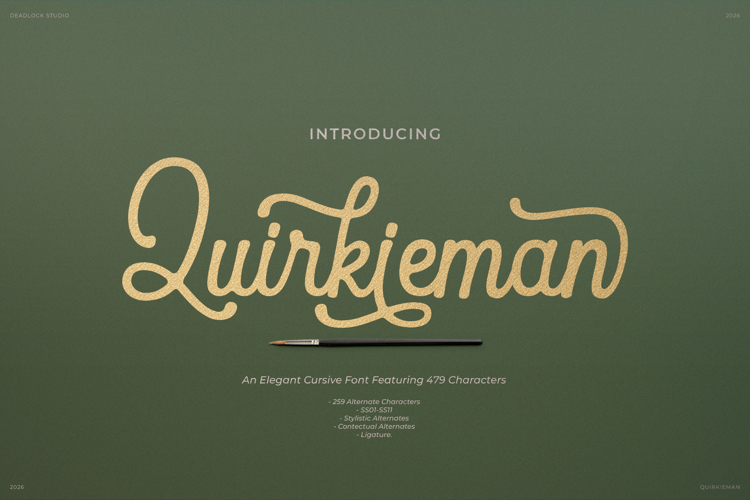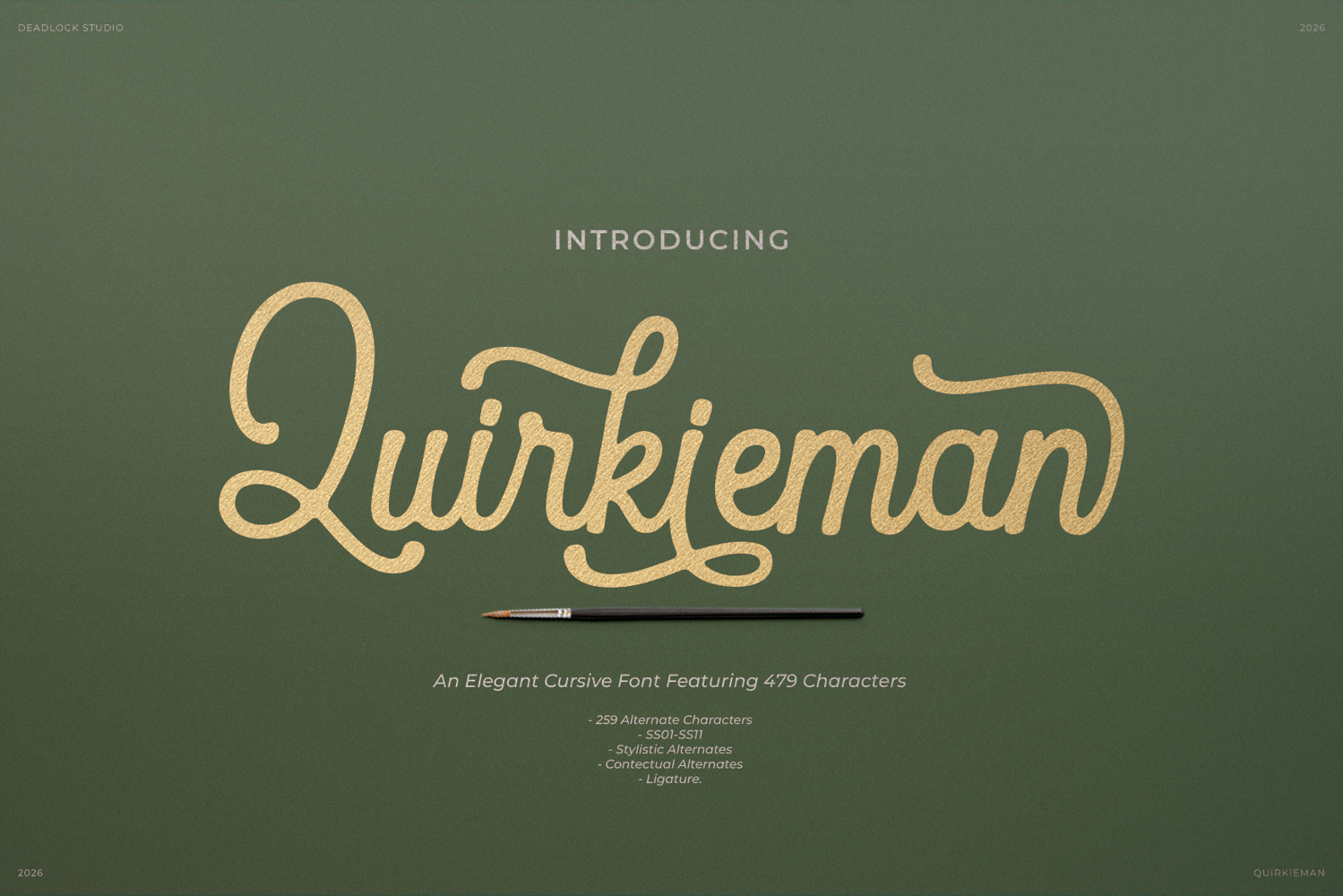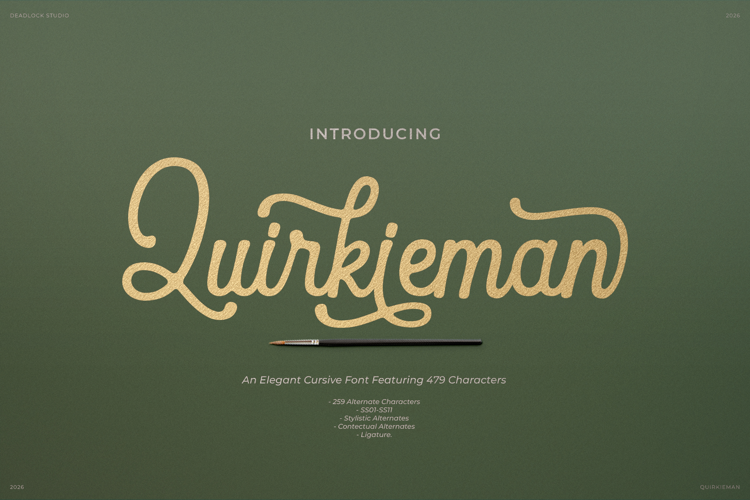
Quirkieman
Meet Quirkieman, a vintage handmade cursive font crafted with a raw, authentic human touch. If you are looking for a script font that instantly makes any design feel original, organic, and truly custom made, this one is for you!
Quirkieman captures the nostalgic charm of classic, oldschool handwriting while keeping a clean, versatile modern flow. It is incredibly adaptive, blending effortlessly into rugged, bold branding, casual everyday packaging, or high-end elegant designs without missing a beat.
- 479 Total Characters
- 259 Alternate Characters
- Contextual Alternates (calt)
- Stylistic Sets (ss01 to ss11)
- Standard Ligatures
Logos and branding, vintage packaging, t-shirt prints, merchandise, retro posters, wedding stationery, aesthetic menus, and social media quotes.
Give your next creative project a timeless, hand drawn vintage soul with Quirkieman!